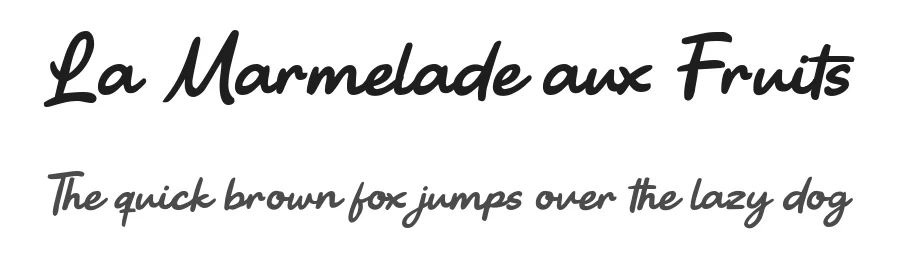
About Freehand Written Font
Freehand Written is a script & handwritten font designed by Galdino Otten Fonts. It includes 235 glyphs, a regular weight, TTF (TrueType) format, and 217 languages. Freehand Written is free to download; check the license details on this page before commercial use. Script & handwritten fonts like Freehand Written work best for wedding invitations, greeting cards, signatures, and elegant branding.
Freehand Written Font is a script font that shines as a display or heading face. Pair it with a clean sans-serif or serif font for body text β the contrast creates a clear hierarchy while the two styles stay balanced and easy to read.